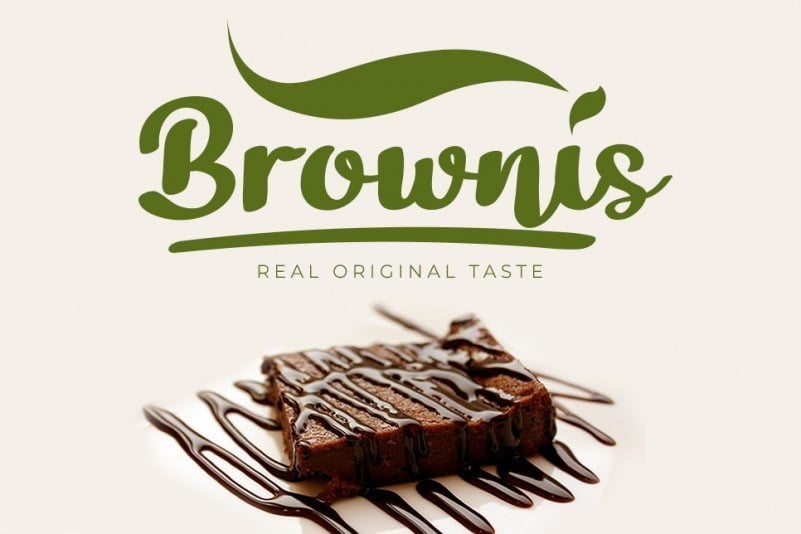
Bathi Bold Script Font
Introduce this is the Bathi font. Made with a touch of the hand with a relaxed and friendly feel but still beautiful in appearance. You can create beautiful, elegant and attractive designs with this font
This font is also suitable for book titles, quotes, covers, paragraph content, logos, posters, wedding invitations, and more.let’s start making nice and beautiful design projects with this font now!